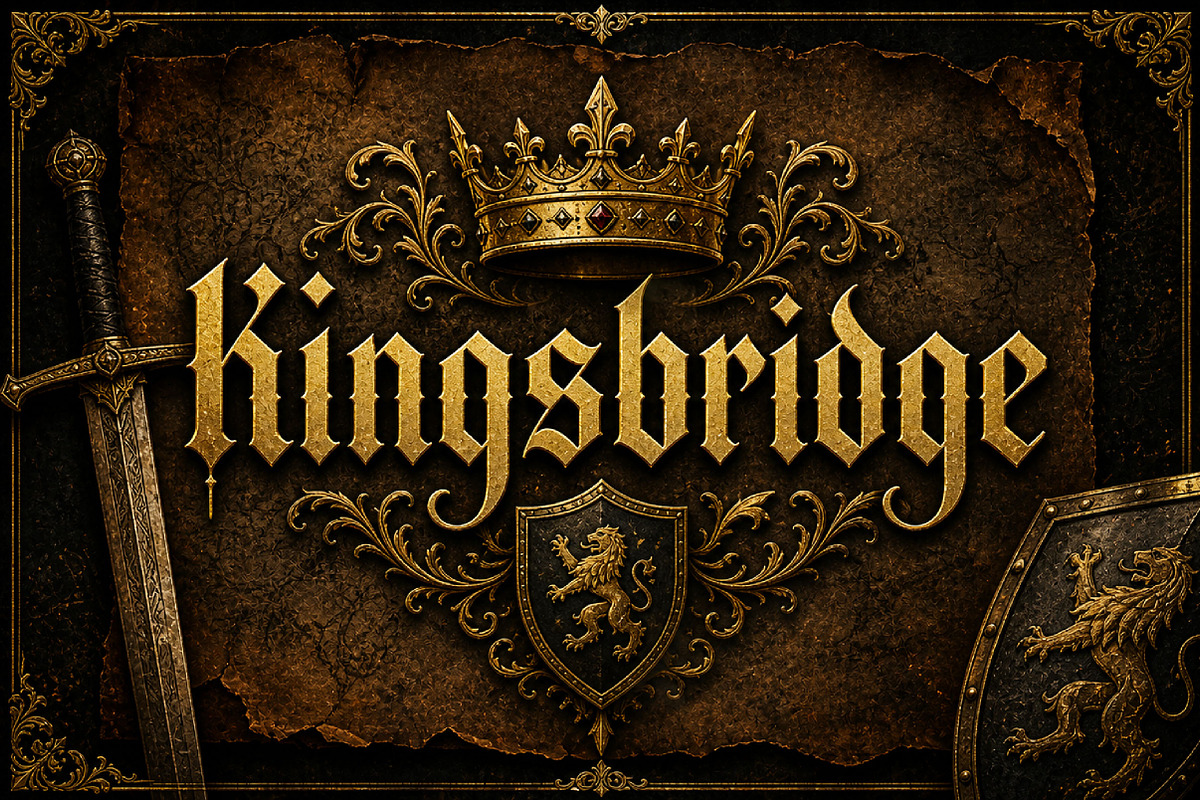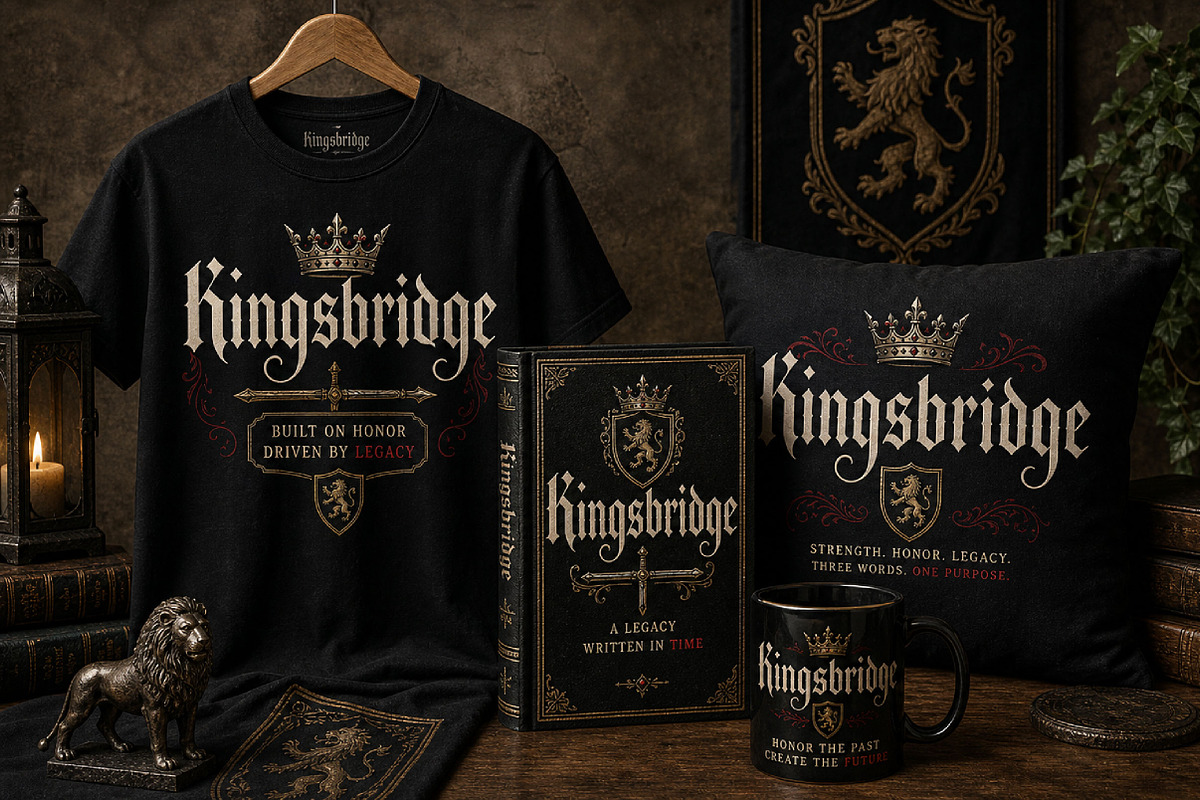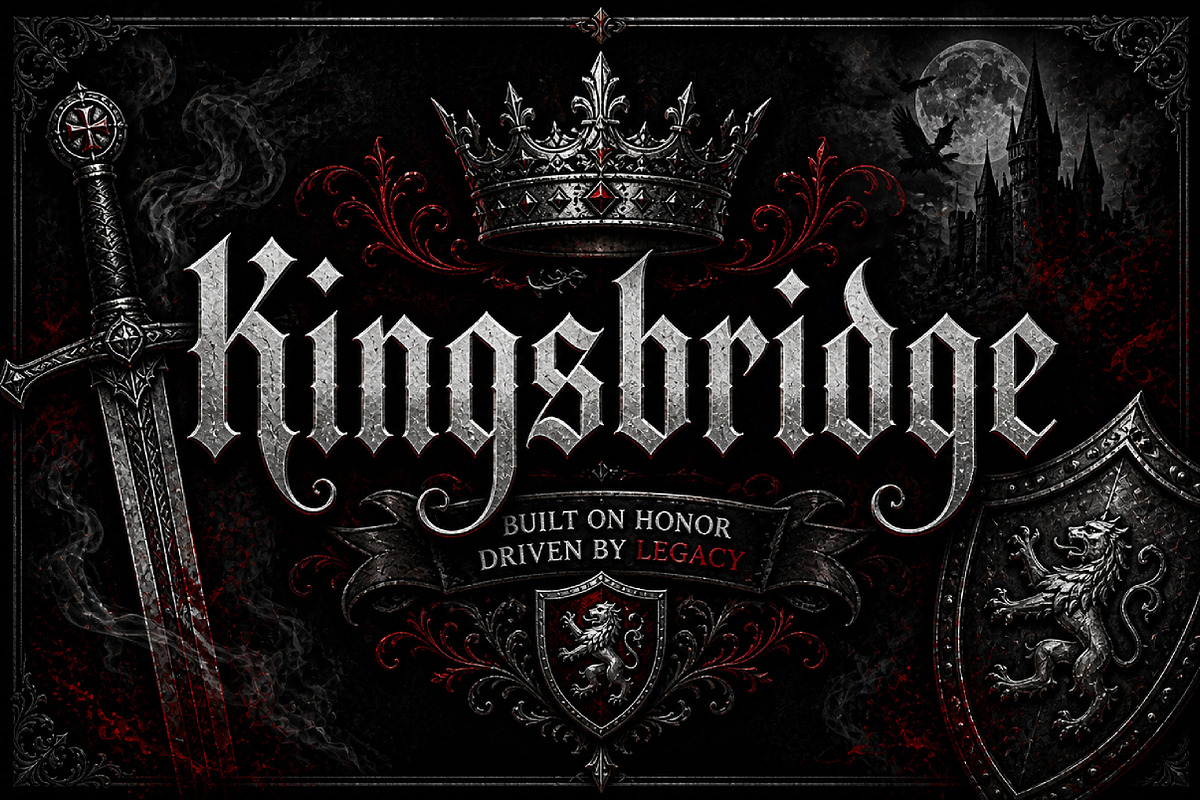
Kingsbridge
Kingsbridge – Elegant Blackletter Display Font
Kingsbridge is an elegant blackletter display font with sharp gothic shapes and graceful decorative curves, perfect for logos, posters, branding, tattoos, packaging, and luxury designs.
Kingsbridge is a refined blackletter display font designed to bring a bold, classic, and sophisticated look to your creative projects. With sharp gothic letterforms, dramatic contrast, and elegant swash details, this font creates a strong visual presence with a timeless medieval-inspired feel.
Its balance of traditional blackletter style and modern display appeal makes Kingsbridge ideal for designs that need authority, elegance, and character. Use it for logos, branding, poster titles, album covers, tattoo artwork, fashion labels, event graphics, merchandise, packaging, and premium visual identities.
Whether you are creating a gothic logo, vintage headline, luxury brand design, or bold statement typography, Kingsbridge delivers a powerful and memorable impression.
Logos and branding
Gothic posters
Blackletter designs
Tattoo-style artwork
Album covers
Luxury packaging
Fashion and apparel
Event graphics
Merchandise designs
Vintage headlines
Elegant blackletter style
Sharp gothic letterforms
Decorative swash details
Perfect for display typography